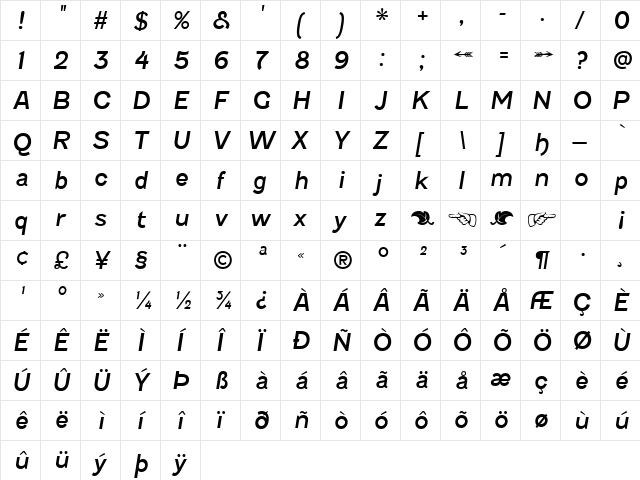
Fenwick Italic
Design Context for Fenwick Typeface
Fenwick offers clean, dependable letterforms without strong stylistic allegiance, making it a practical choice for designers who need flexibility. The slanted form adds forward momentum and visual energy.
Pro Tip: Try Fenwick for annotation and caption copy alongside an upright companion — the contrast in angle creates a dynamic but ordered typographic system.